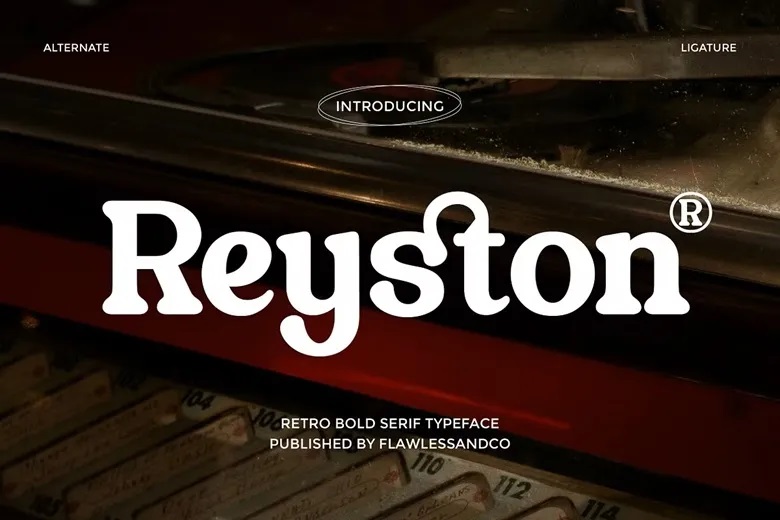
Reyston Font
Reyston is a retro bold serif typeface, which aims to embrace the classic aesthetic of old typography in bold and assertive look. With great serif profiles, heavy strokes and elegant curves, Reyston offers a nostalgic yet elegant appearance that comes out very beautiful in modern design work.
This font is a blend of retro type and a beautiful equilibrium of visual features, which ranks it great among designers who desire to produce designs that would be vintage and at the same time sophisticated. It is bold structured so as to provide good visibility, which is perfect in creating effective headlines and exclusive branding.